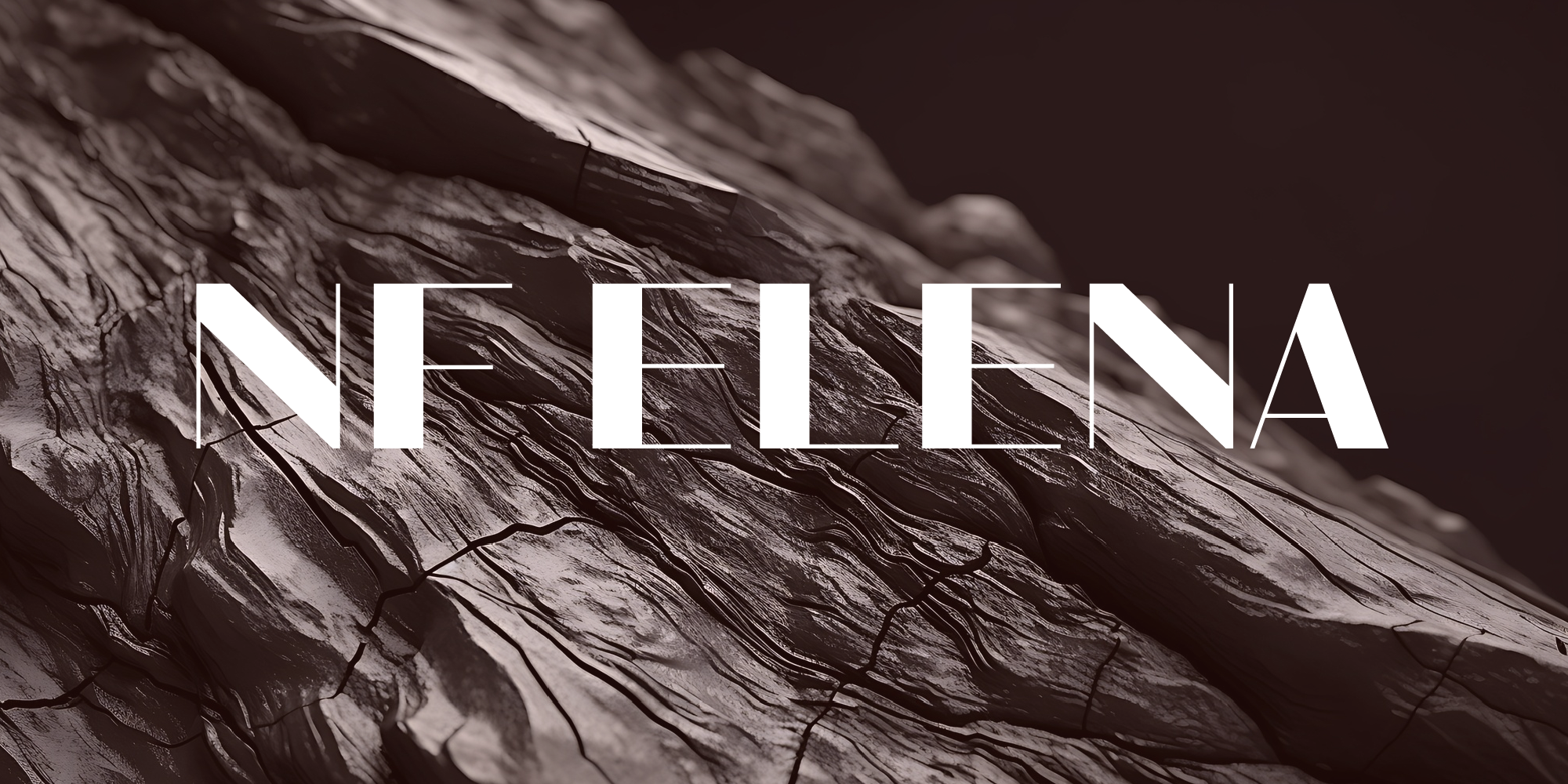
NF Elena Font
NF Elena Complete Family
NF Elena was designed by Nikolay Savchuk. NF Elena was created on base Katerina sans-serif typeface. It is brilliantly suited for graphic design and display use and perfect for magazines, newspapers, books, websites, brand identity, and advertising.